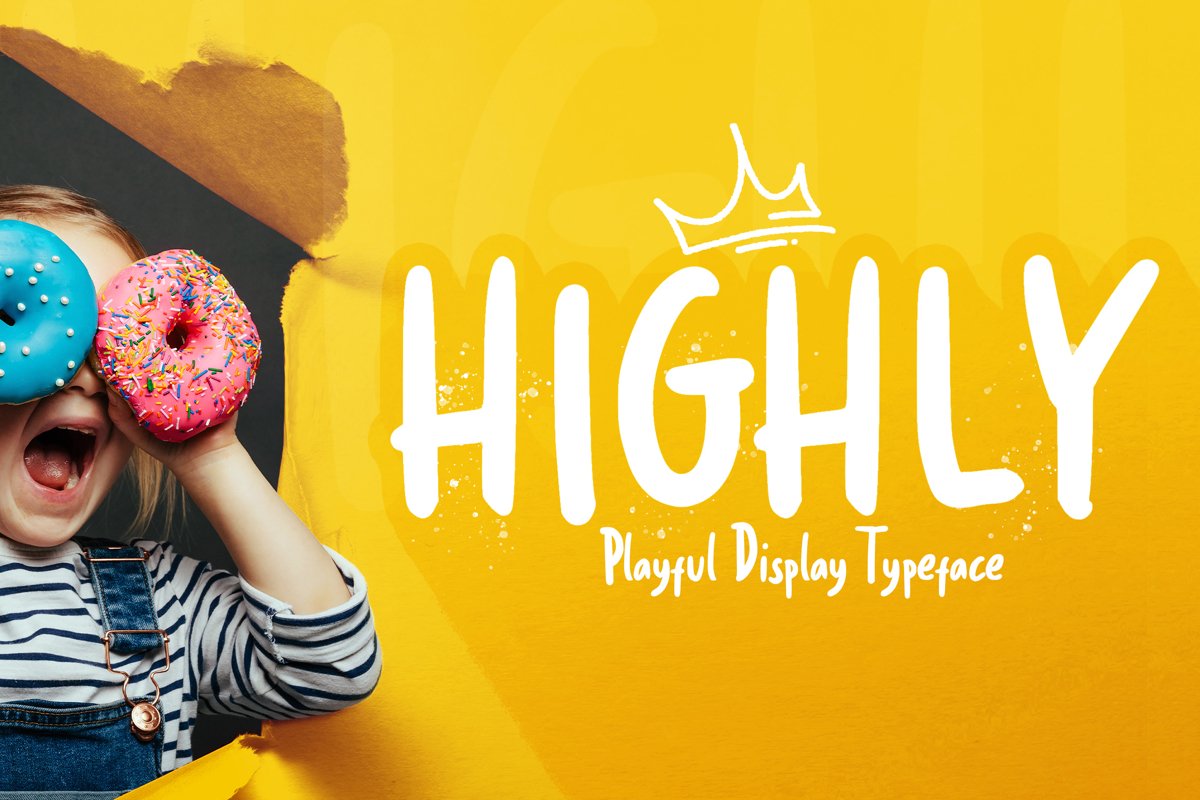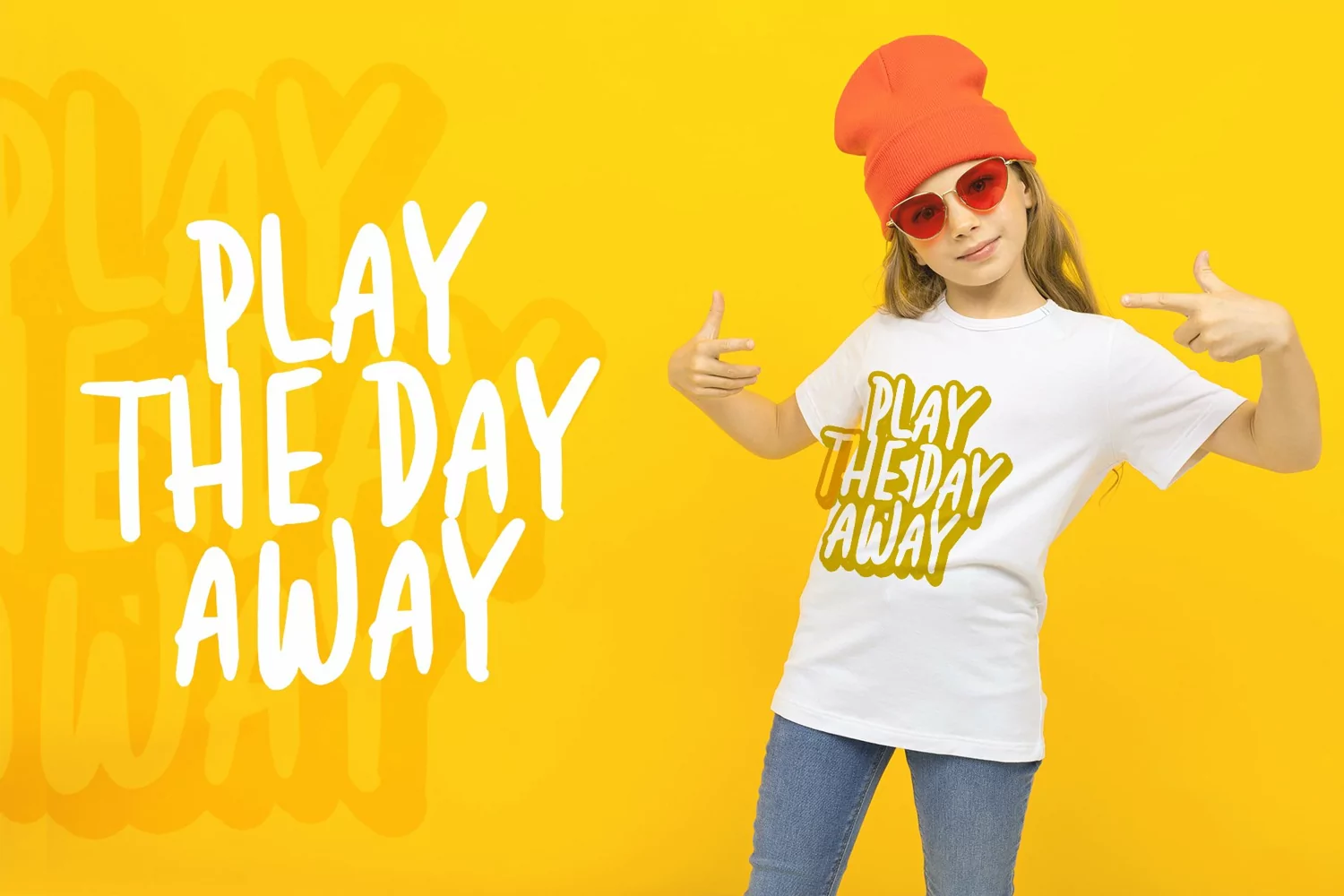
Highly is a unique display font. This fantastic font is best suited for headlines of all sizes. Get creative with its childlike playfulness, and use it to brighten up any kids and fun project!